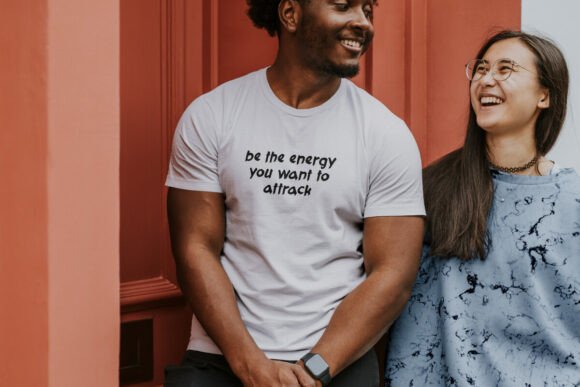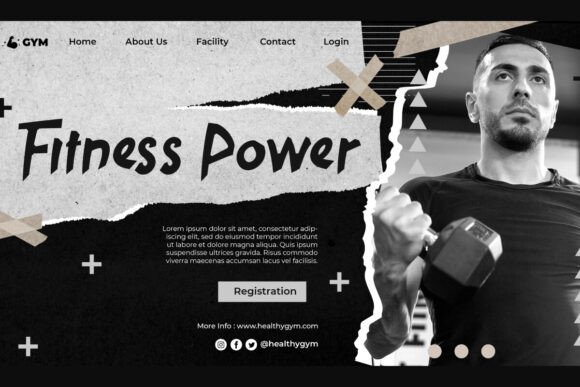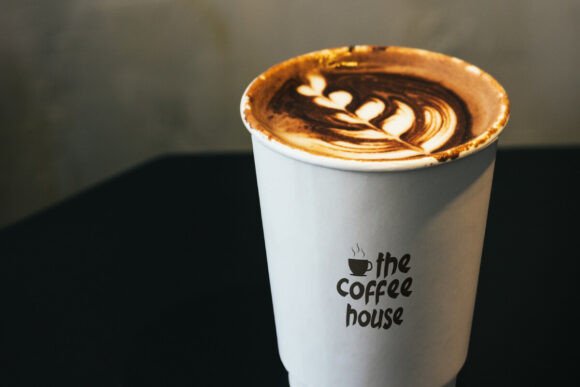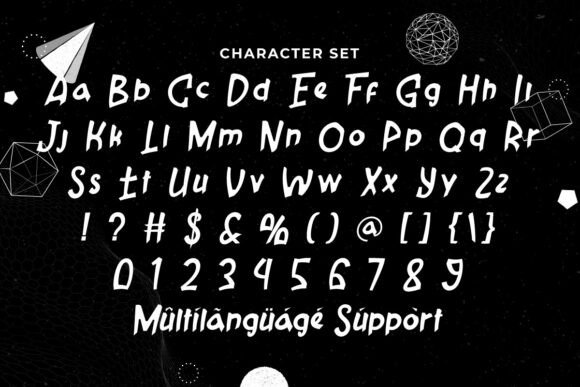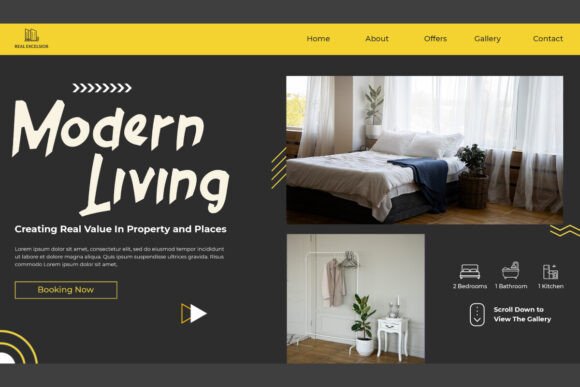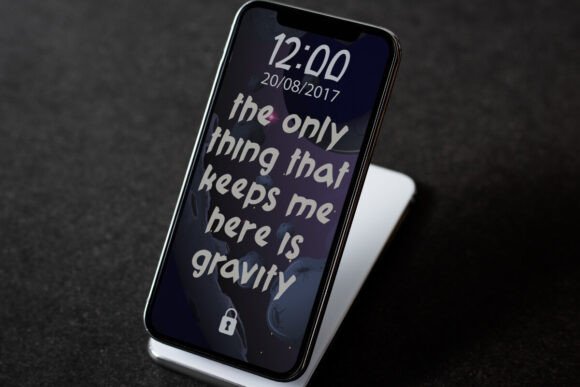
Introducing Gravity Level Font: The Ultimate Modern Display Typeface
Are you tired of using the same old fonts for your designs? Look no further! Gravity Level Font is a modern, passionate gaming and technology display theme font that’s sure to take your creations to the next level. With its unique style and energetic vibe, this font is perfect for designers and crafters who want to make a statement.
What is Gravity Level Font?
Gravity Level Font is a cutting-edge display typeface that’s specifically designed for gaming and technology-themed designs. Its modern and passionate style is sure to radiate enthusiasm to anyone who sees it. Whether you’re working on a project for a tech startup, a gaming company, or a personal brand, this font is sure to make a lasting impression.
Key Features of Gravity Level Font
- Modern and Passionate Style: Gravity Level Font boasts a unique and energetic style that’s perfect for designs that require a bold and attention-grabbing approach.
- Versatile: This font is not limited to just gaming and technology designs. It’s versatile enough to be used for a wide range of projects, including advertisements, brand images, business cards, covers, custom designs, invitations, labels, menus, posters, product packaging, quotes, website pages, and more!
- High-Quality Design: Gravity Level Font is designed with precision and attention to detail, ensuring that it looks great in any design or project.
Who Can Benefit from Gravity Level Font?
Gravity Level Font is perfect for:
- Graphic Designers: If you’re a graphic designer looking for a modern and versatile font to add to your collection, Gravity Level Font is an excellent choice.
- Game Developers: If you’re working on a game development project, this font is perfect for creating titles, menus, and other in-game text.
- Tech Enthusiasts: If you’re a tech enthusiast who loves to create designs for your favorite tech brands or startups, Gravity Level Font is a great addition to your design toolkit.
- Crafters and Makers: If you’re a crafter or maker who loves to create handmade products or DIY projects, this font can add a modern and edgy touch to your designs.
How to Use Gravity Level Font
Using Gravity Level Font is easy! Here are some ideas to get you started:
- Advertisements: Use Gravity Level Font to create eye-catching ads that grab attention and drive results.
- Branding and Identity: Create a strong brand identity with Gravity Level Font, perfect for logos, business cards, and letterheads.
- Web Design: Add a modern touch to your website with Gravity Level Font, perfect for headings, titles, and other display text.
- Product Packaging: Make your product stand out with Gravity Level Font on labels, packaging, and marketing materials.
Why Choose Gravity Level Font?
With so many fonts available, why choose Gravity Level Font? Here are just a few reasons:
- Unique Style: Gravity Level Font has a unique and energetic style that’s sure to make your designs stand out.
- High-Quality Design: This font is designed with precision and attention to detail, ensuring that it looks great in any design or project.
- Versatile: Gravity Level Font is versatile enough to be used for a wide range of projects and designs.
Gravity Level Font is a modern, passionate gaming and technology display theme font that’s perfect for designers and crafters who want to make a statement. With its unique style, high-quality design, and versatility, this font is sure to take your designs to the next level. Whether you’re working on a game development project, a tech startup, or a personal brand, Gravity Level Font is an excellent choice. So why wait? Download Gravity Level Font today and start creating amazing designs!